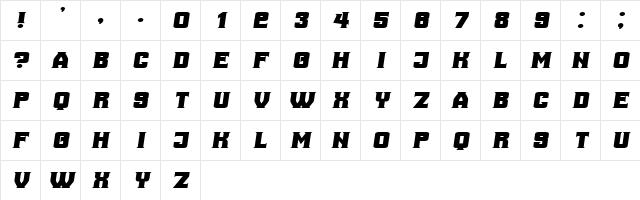
Ana Italic
Design Context for Ana
Ana is a composed and adaptable typeface that performs quietly and consistently across a wide range of design contexts. The slanted form adds forward momentum and visual energy.
Pro Tip: Use Ana for emphasis, pull quotes, and subheadings where its slanted energy can add rhythm to the layout.